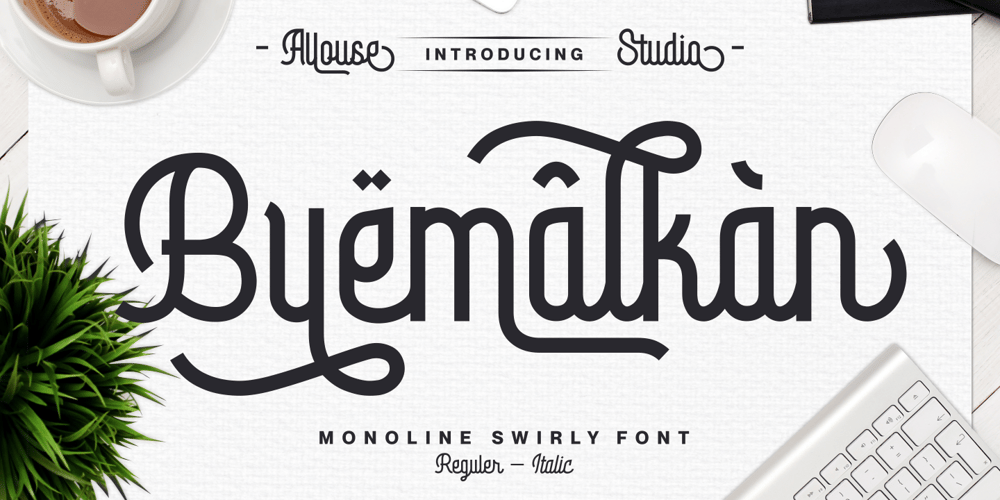
Byemalkan Font Family was designed by Fachrizal Yusuf and published by Allouse Studio. Byemalkan contains 2 styles and family package options. Proudly Presenting, Byemalkan a Monoline Swirly Font that carefully crafted by us with rich swashes for your need!Byemalkan is perfect for any titles, logo, product packaging, branding project, megazine, social media, wedding, or just used to express words above the background.Byemalkan come with much swashes, alternates and also Multi-Lingual Support.We highly recommend using a program that supports OpenType features and Glyphs panels like many of Adobe apps and Corel Draw, so you can see and access all Glyph variations.Enjoy the font, feel free to comment or feedback, send me PM or email. Thank You!